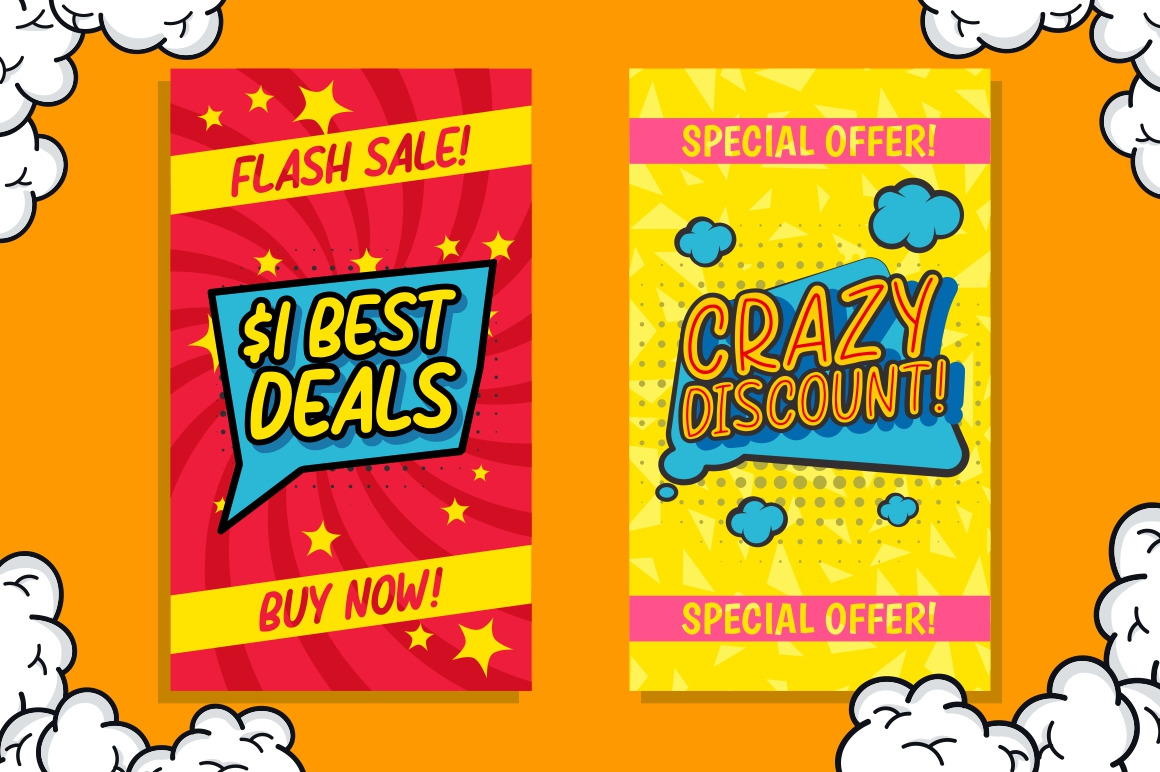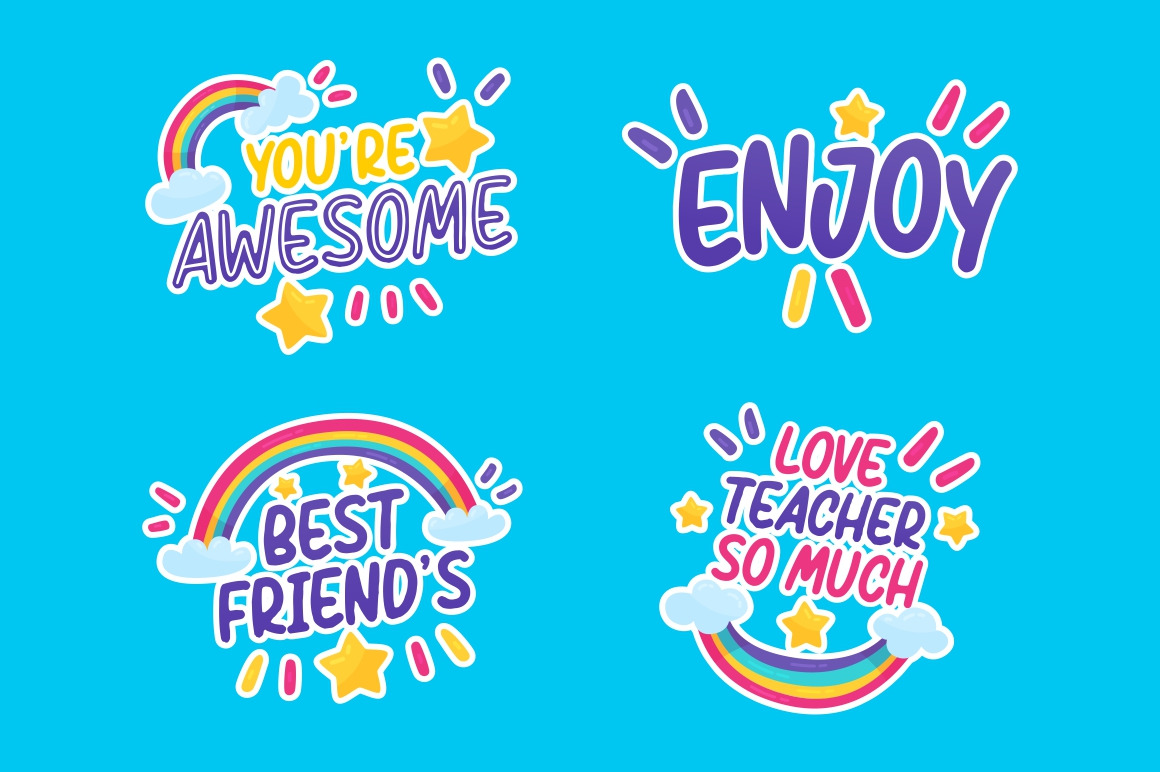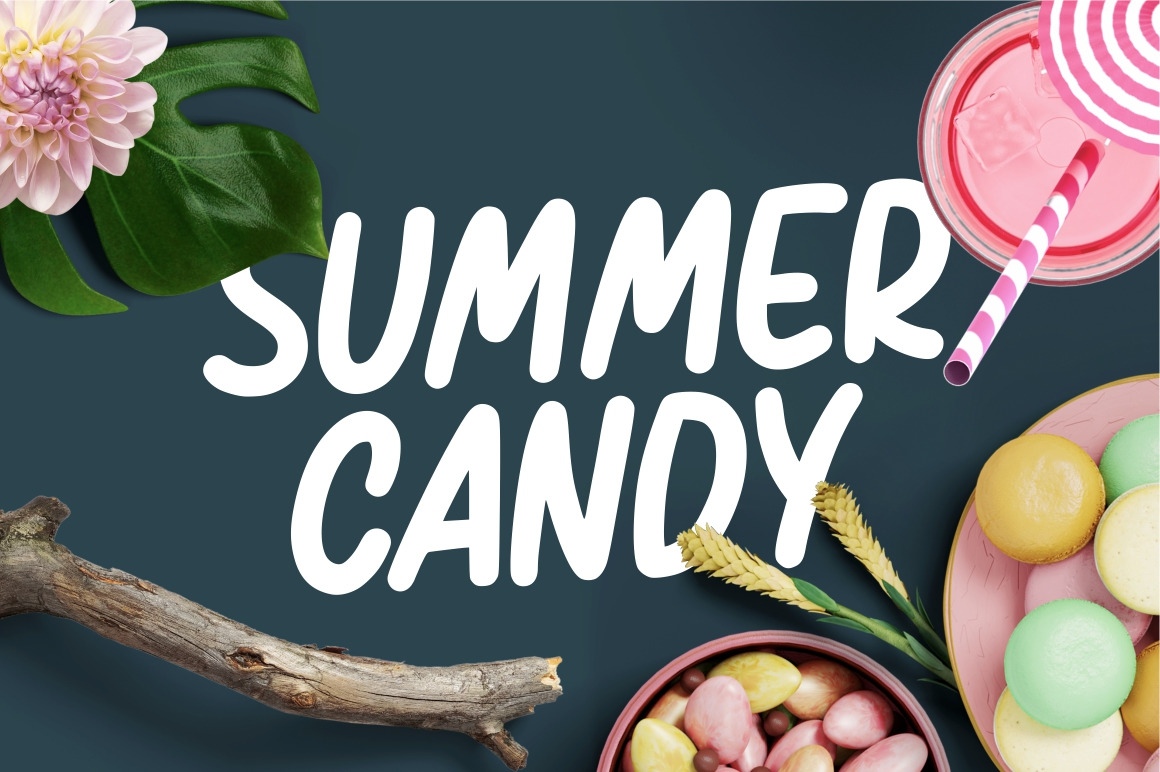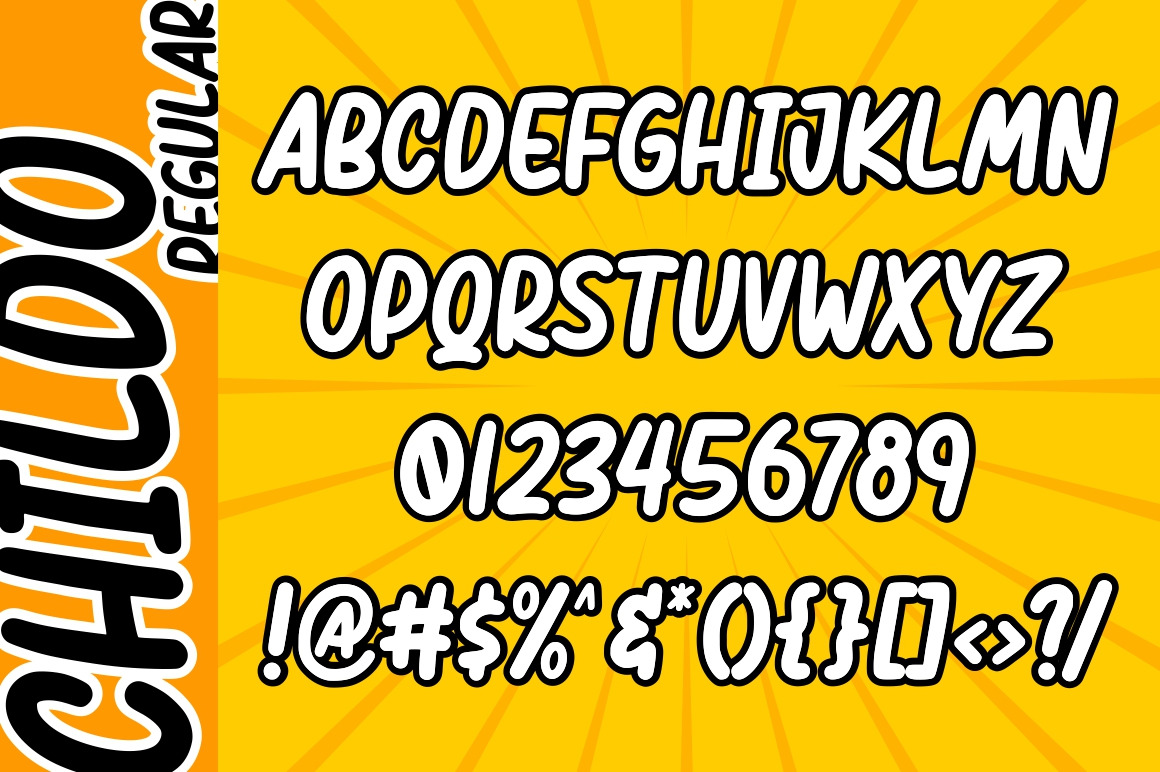
Childo | Funny Font
Introducing Childo Funny Font
Childo – Funny Font is bold and fun display font. It brings joyful and happiness to all of us. Inspired by bold and fun marker with bold and strong style. This font is ideal for display, text, print, branding, signage, with a set of optimal characters for your design in any layout
- Numerals & Punctuations
- Multilingual characters (support for 23 languages)